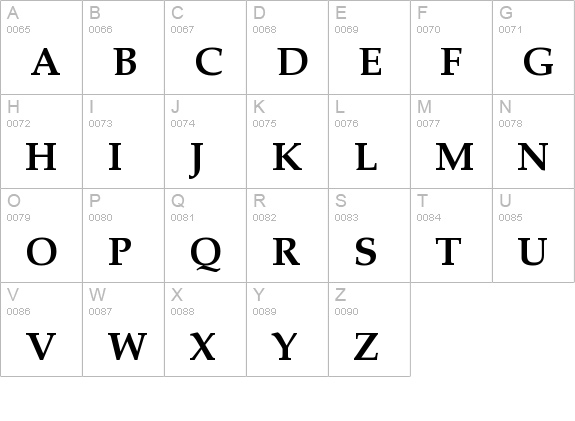
QTPalatine Bold Font Details
QTPalatine Bold is a strong, high-contrast variant in the QTPalatine typeface family \xE2\x80\x94 well suited to headlines, attention-grabbing titles, and strong calls-to-action.
QTPalatine Bold font is a stunning display typeface that exudes elegance and sophistication. Its bold and confident letterforms make it perfect for headlines, titles, and any design that needs to make a strong impact. With its clean lines and balanced proportions, QTPalatine Bold font commands attention and adds a touch of modernity to any project. Whether you're designing a striking poster, creating a professional logo, or crafting a captivating website, this font is sure to make a lasting impression. But what sets QTPalatine Bold font apart from other typefaces is that it is not just visually pleasing, but also freely available to download at FontsMarket.com. Yes, you read that right - you can get this incredible font completely free of charge. FontsMarket.com offers a wide range of high-quality fonts, and QTPalatine Bold font is just one of the many gems you can find there. So why wait? Elevate your designs with the exceptional QTPalatine Bold font. Download it now from FontsMarket.com and let your creativity soar. Whether you're a professional designer or a passionate hobbyist, this font is a must-have in your typographic arsenal. Embrace the boldness, embrace the beauty, and embrace the freedom of QTPalatine Bold font.